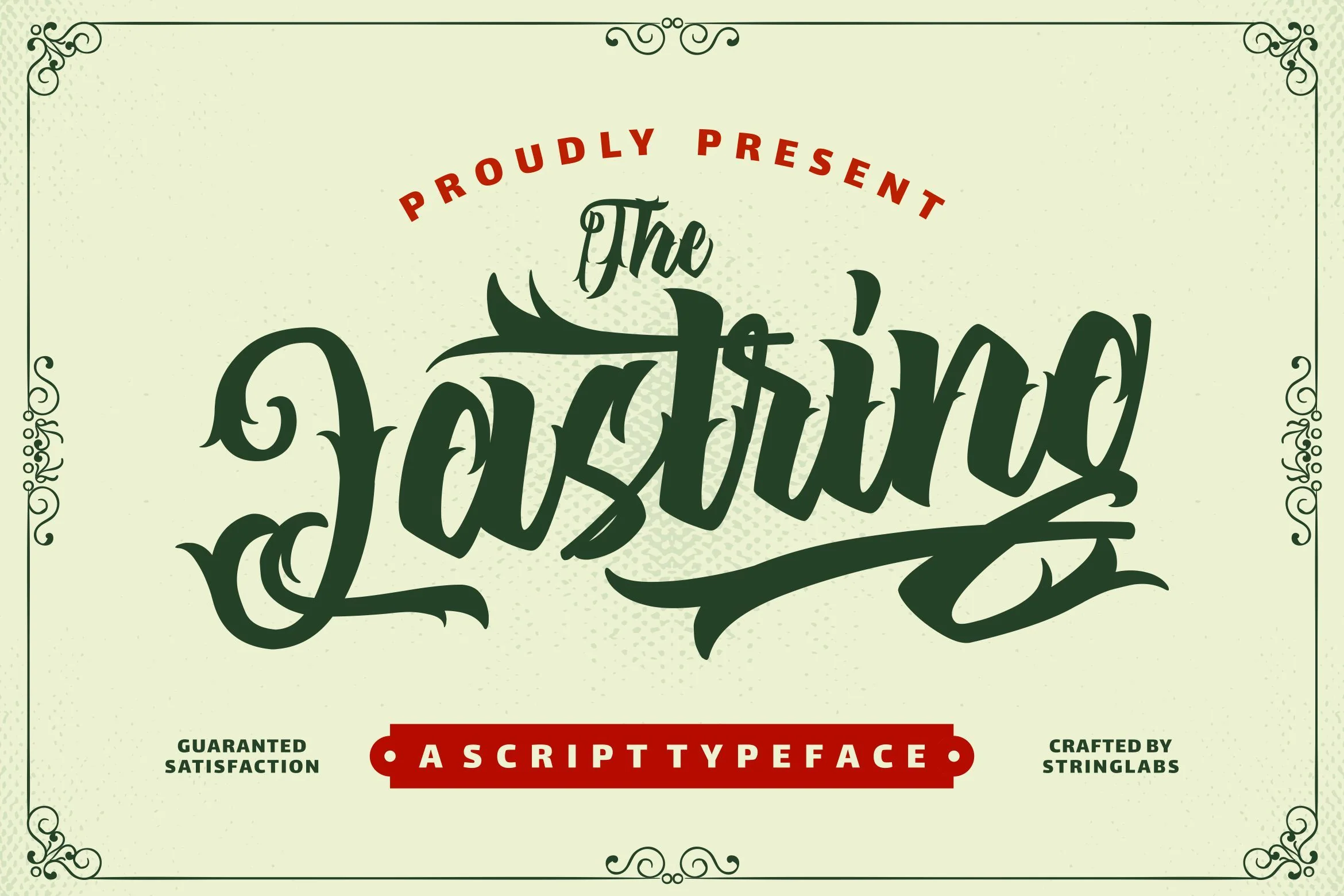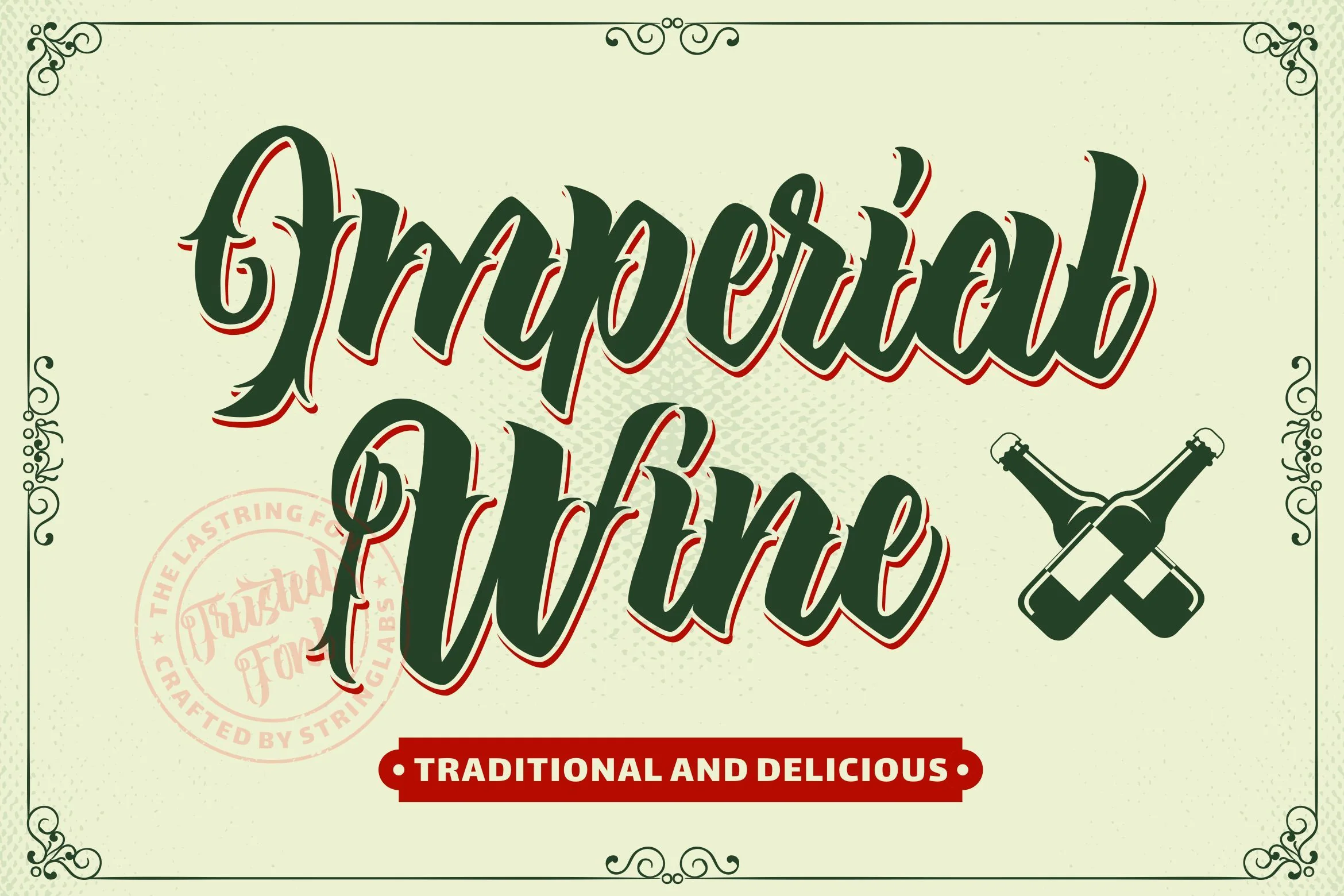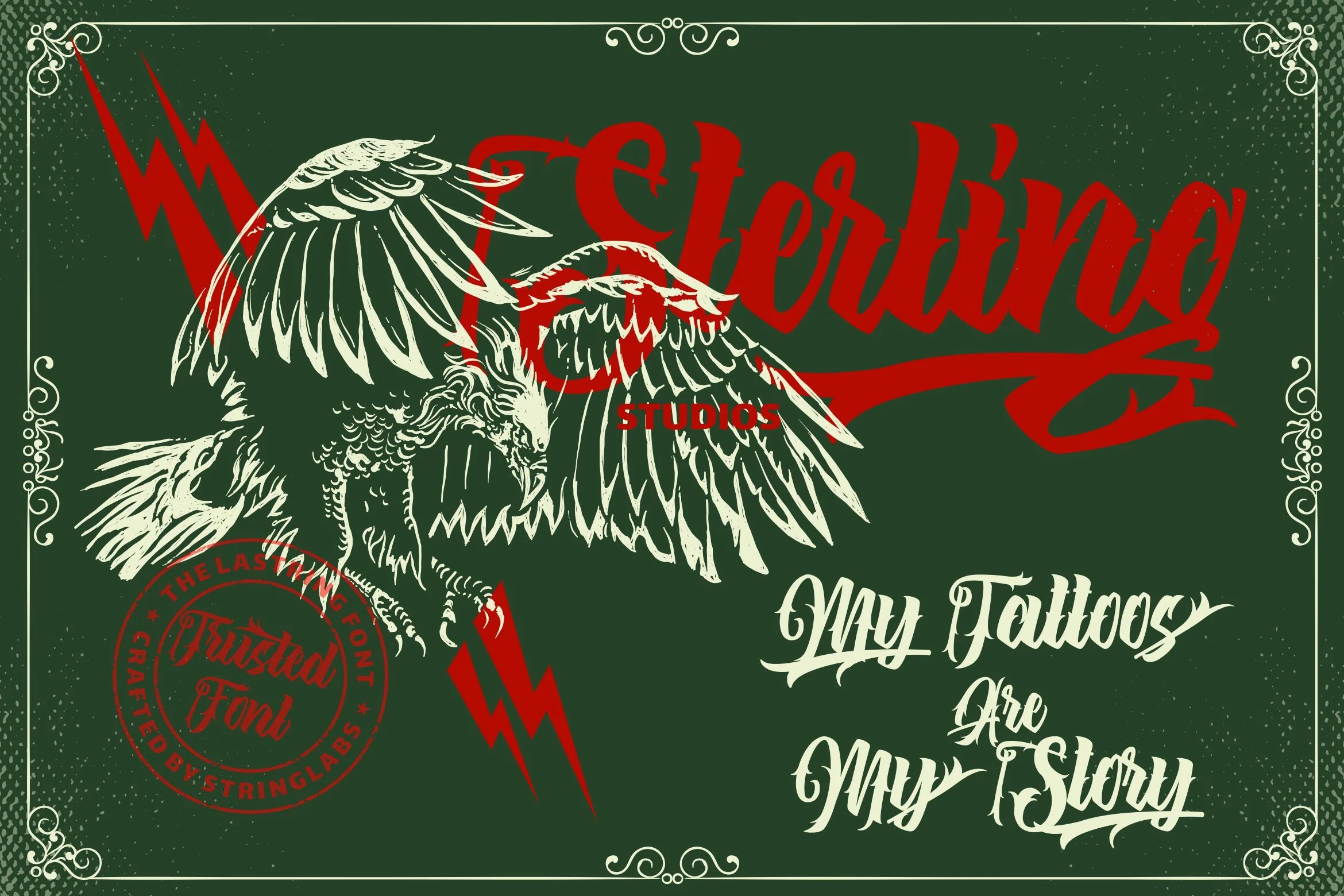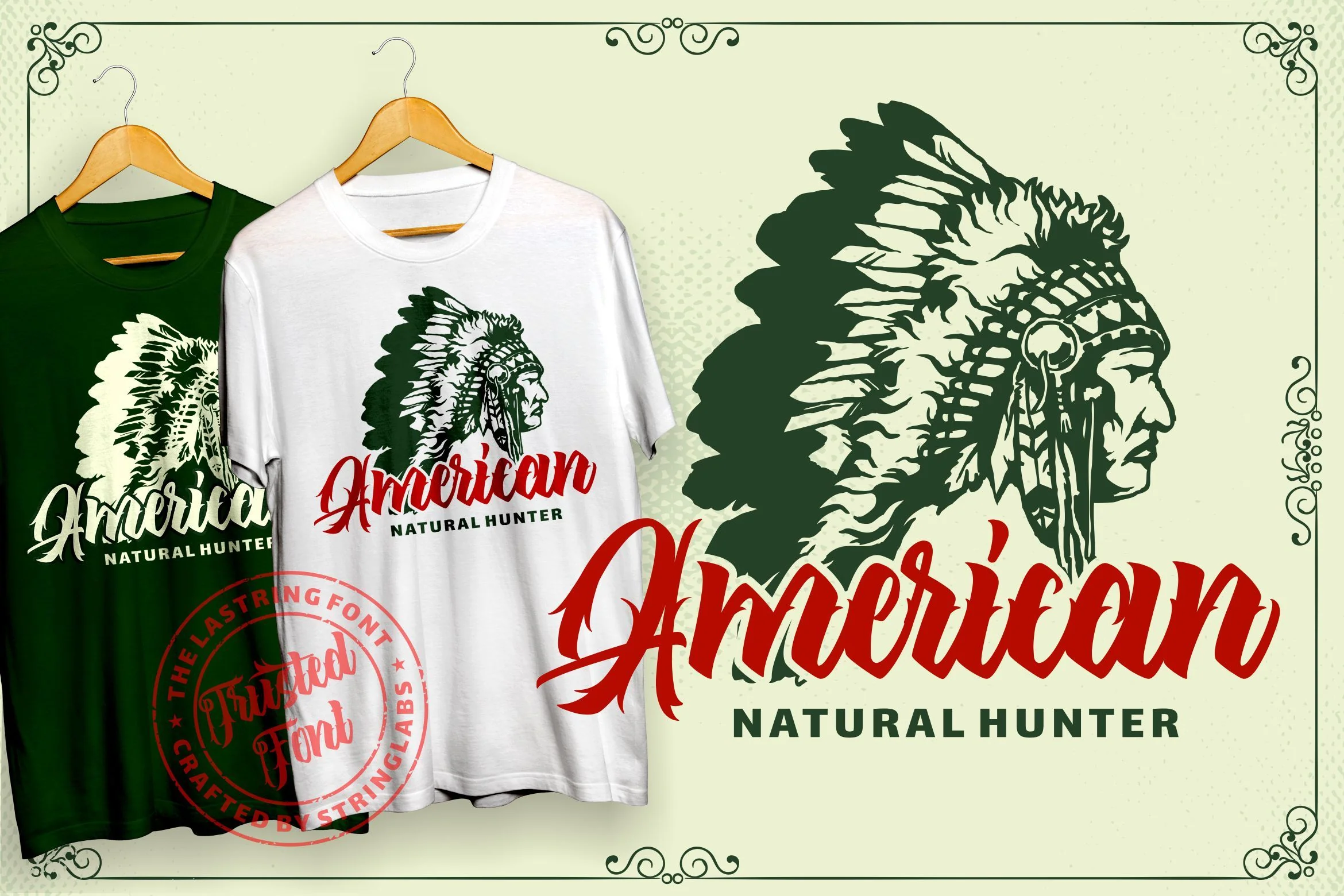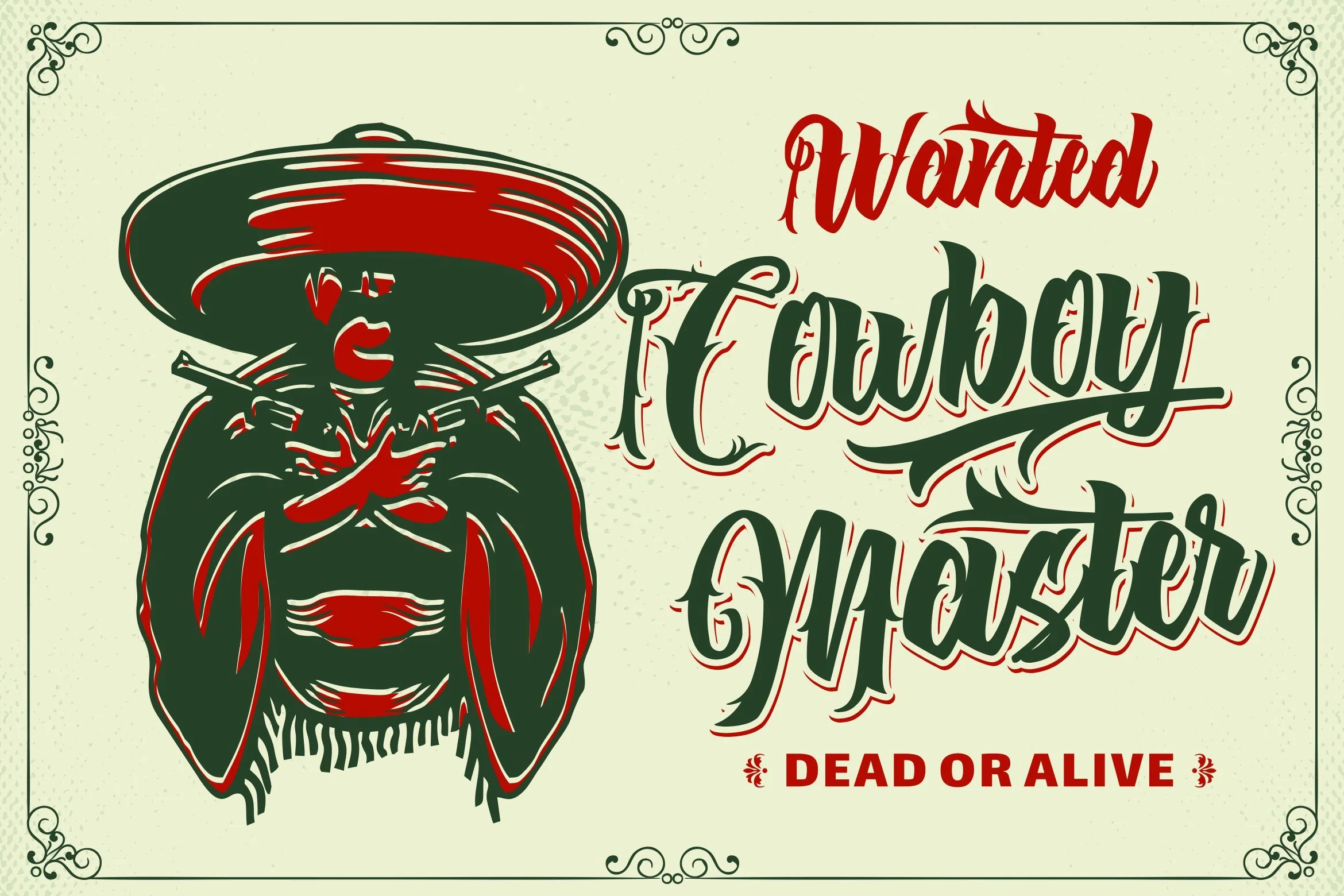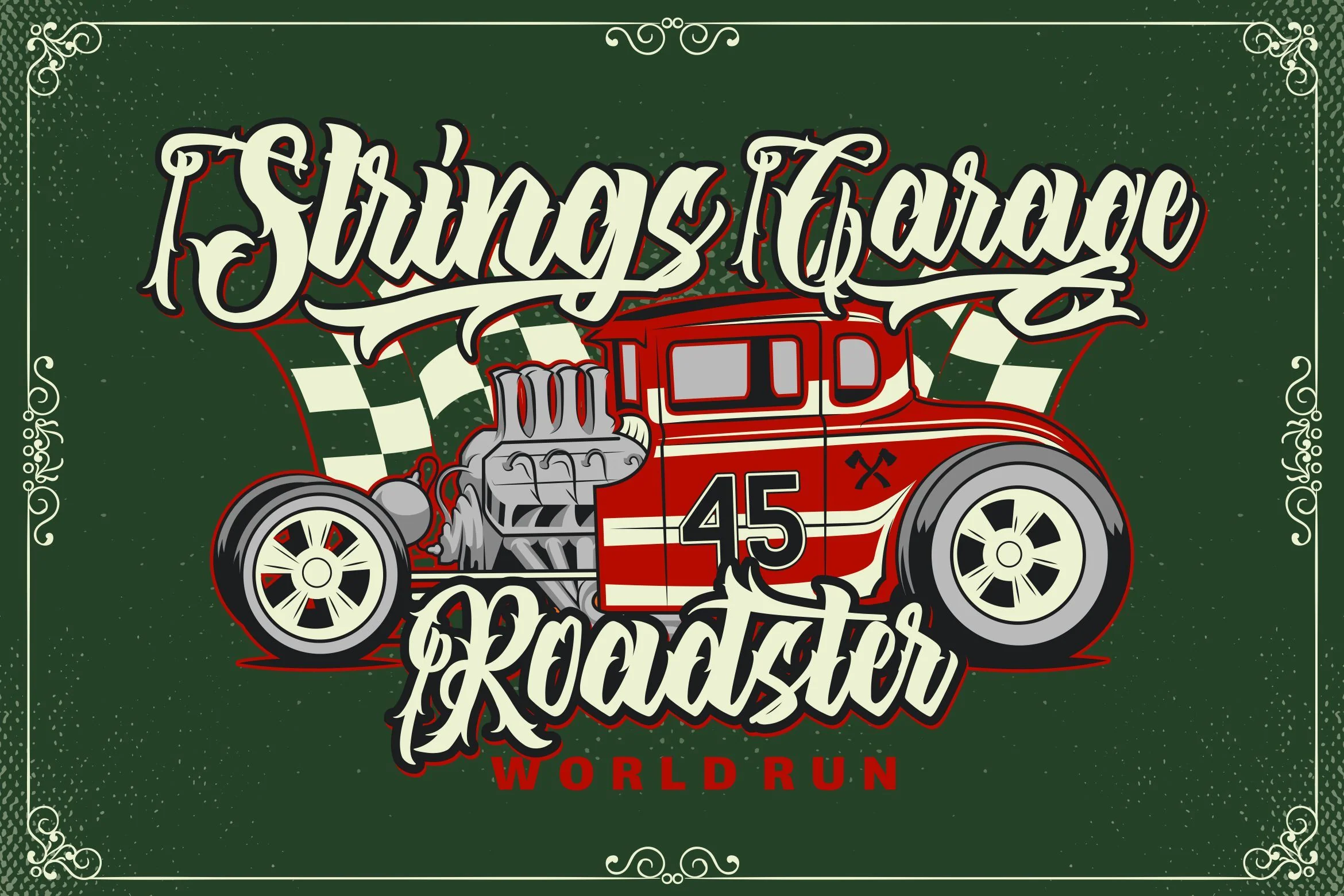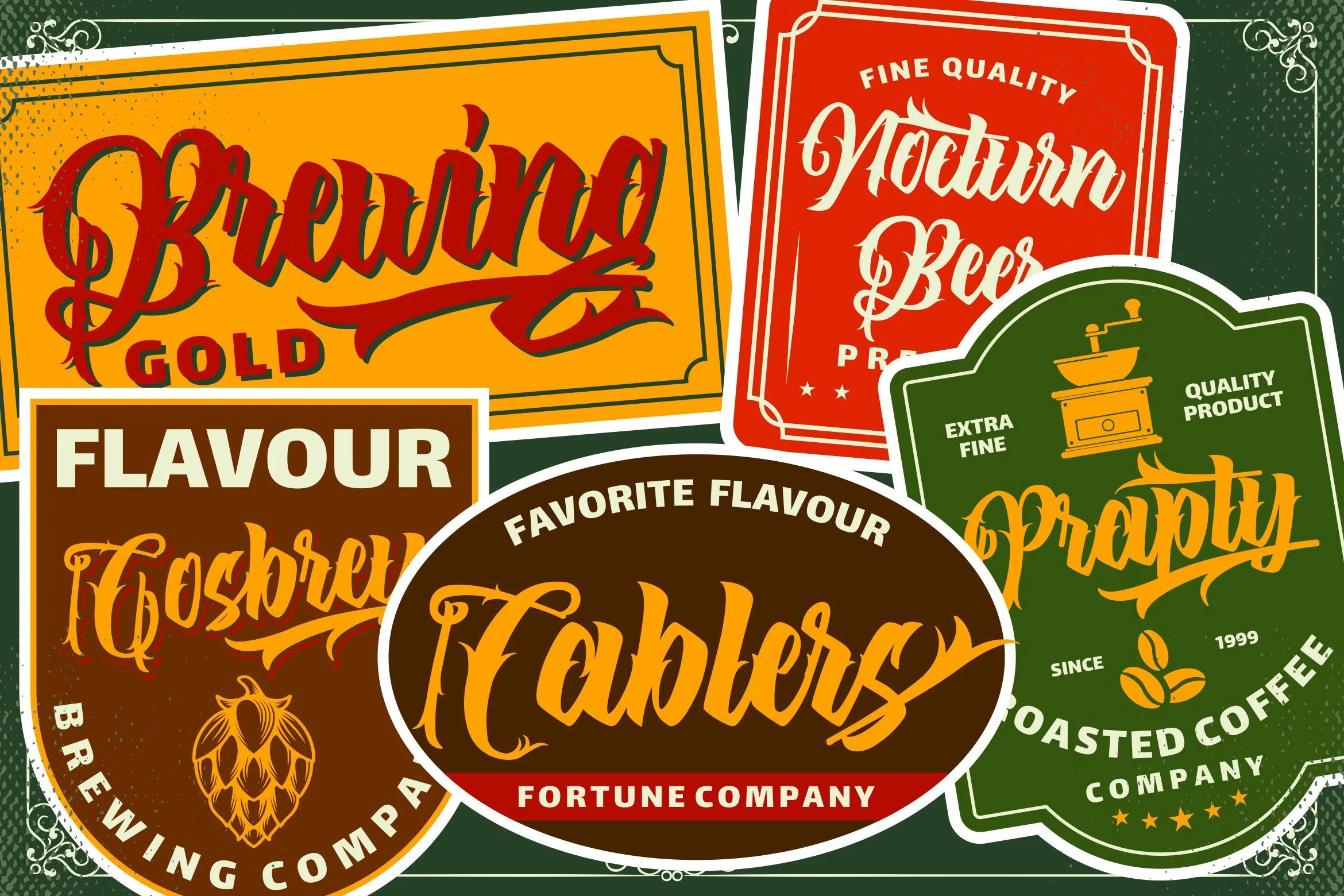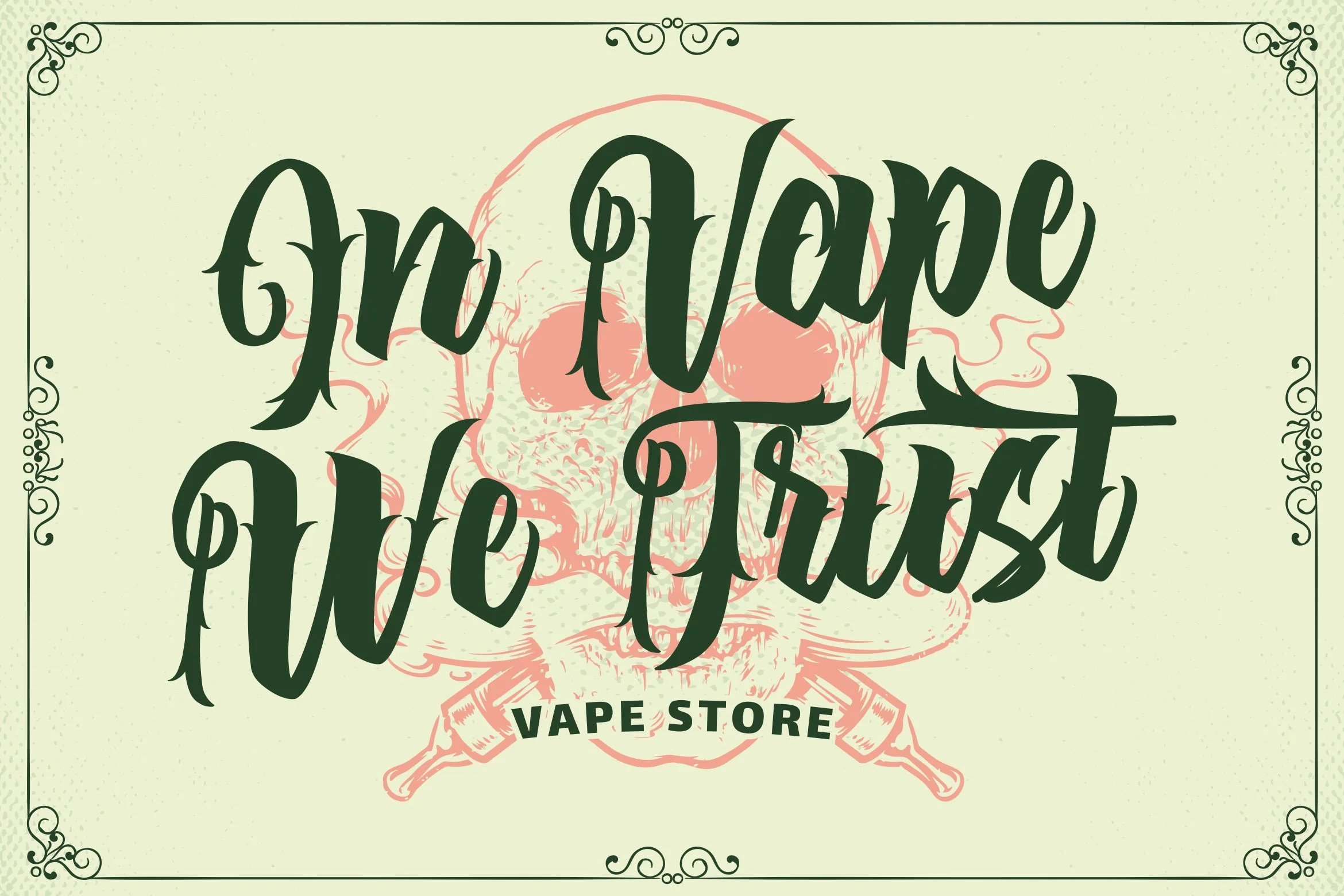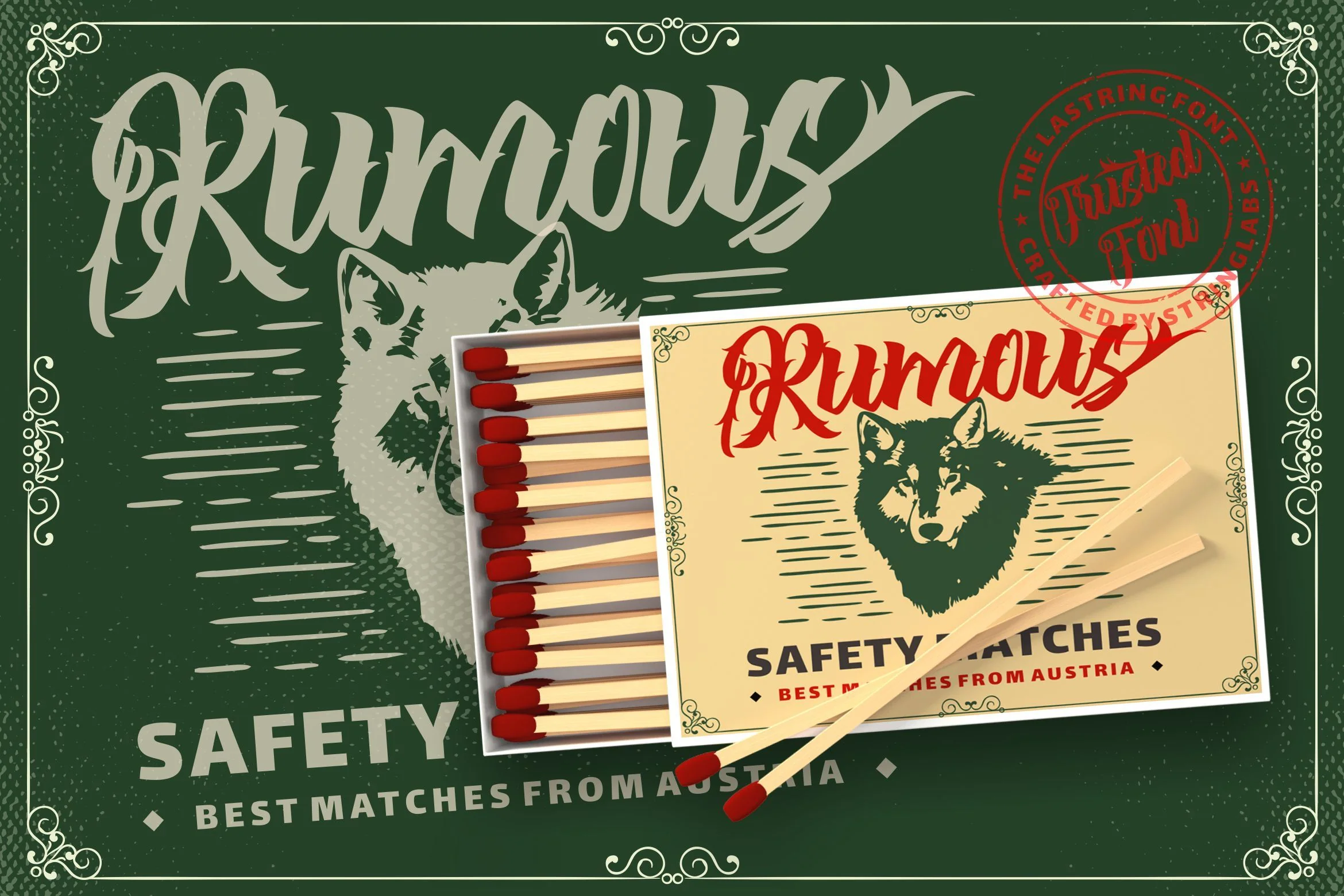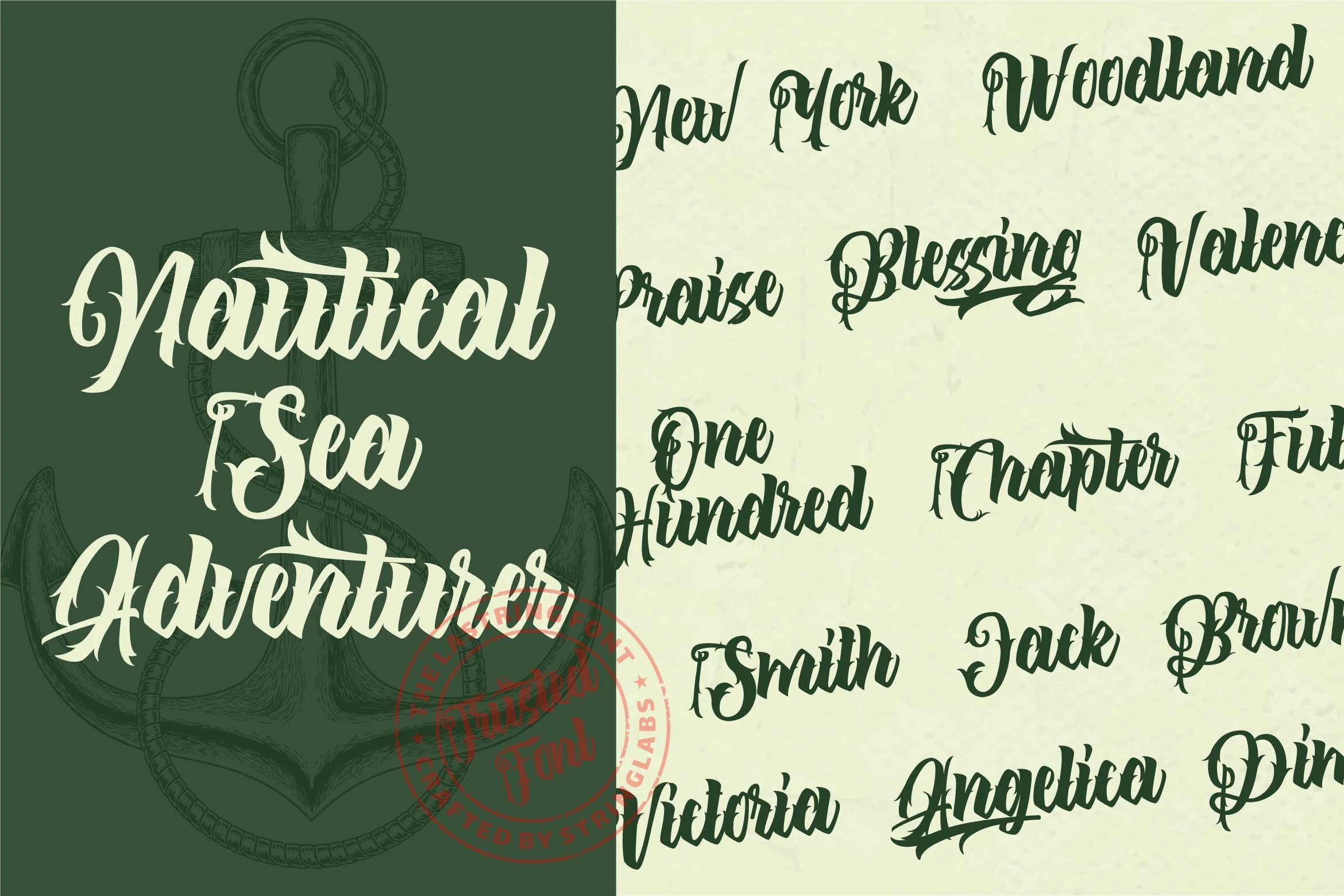
The Lastring - Tattoo Script Font
Introducing The Lastring - Tattoo Script Font
The Lastring is a script typeface with tattoo style, gothic style taste and combine with vintage and retro style. The Lastring is perfect for gothic lovers, besides this font is also perfect if used for brands such as: barbershop, motorcycle club, clothing, coffee shop, shoe brands, vapor shop, wine industry, brewing and many more.
- Stylistic Alternate
- Swash